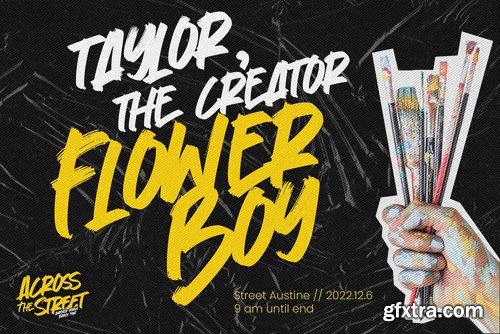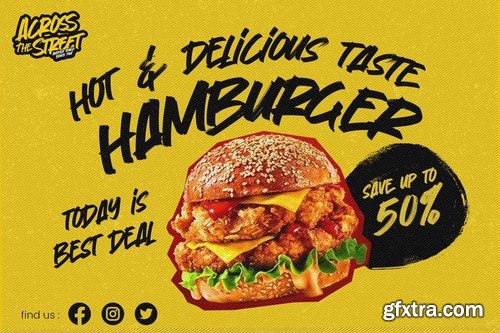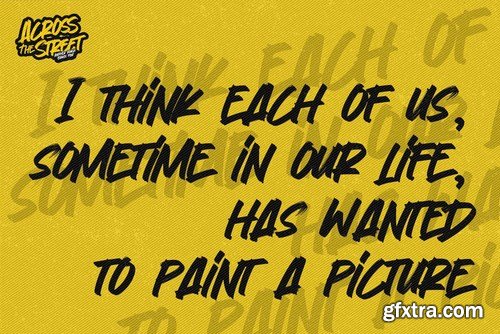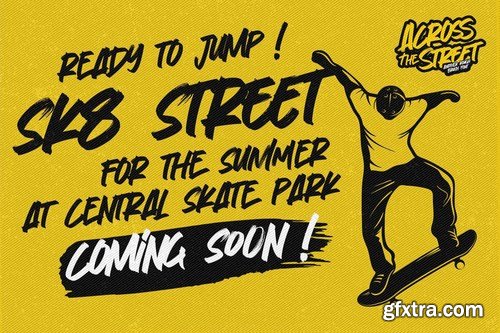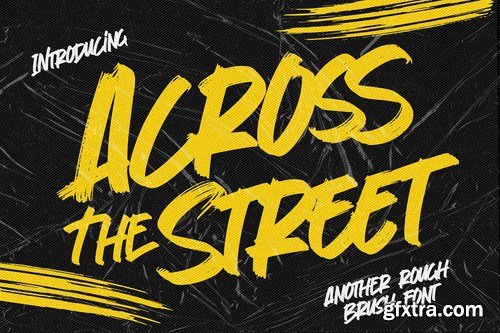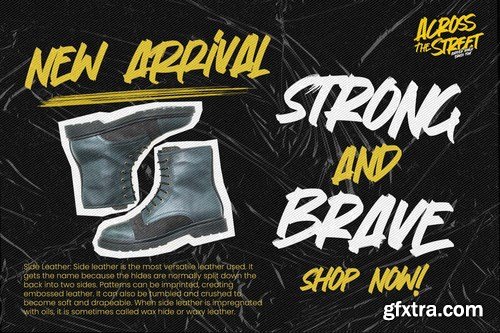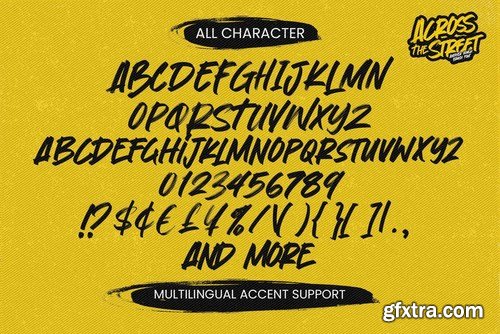
Introducing Across The Street is this Another Rough Brush Font is a Authentic rough brush that is written casually and quickly. Letters are made with brushes on paper. Then scanned and carefully drawn into vector format.
That is whyAcross The Street has charming, authentic and relaxed characteristic more natural look to your text with a more natural look to your text. You can activate Ligature OpenType panel to make these two styles. It also has many that make your text and design more interesting.Crash Soul is perfect for homeware designs,branding projects, Logo design, Quotes product packaging.
This handmade font will make your design has a beautiful natural touch for each details. It is perfect for any design project as Invitation,logo, book cover, craft or any design purposes,photos, photography overlays, signs, window art, scrapbooking, tags and so much more! This font is PUA encoded which means you can access all of Ligatures glypsh.